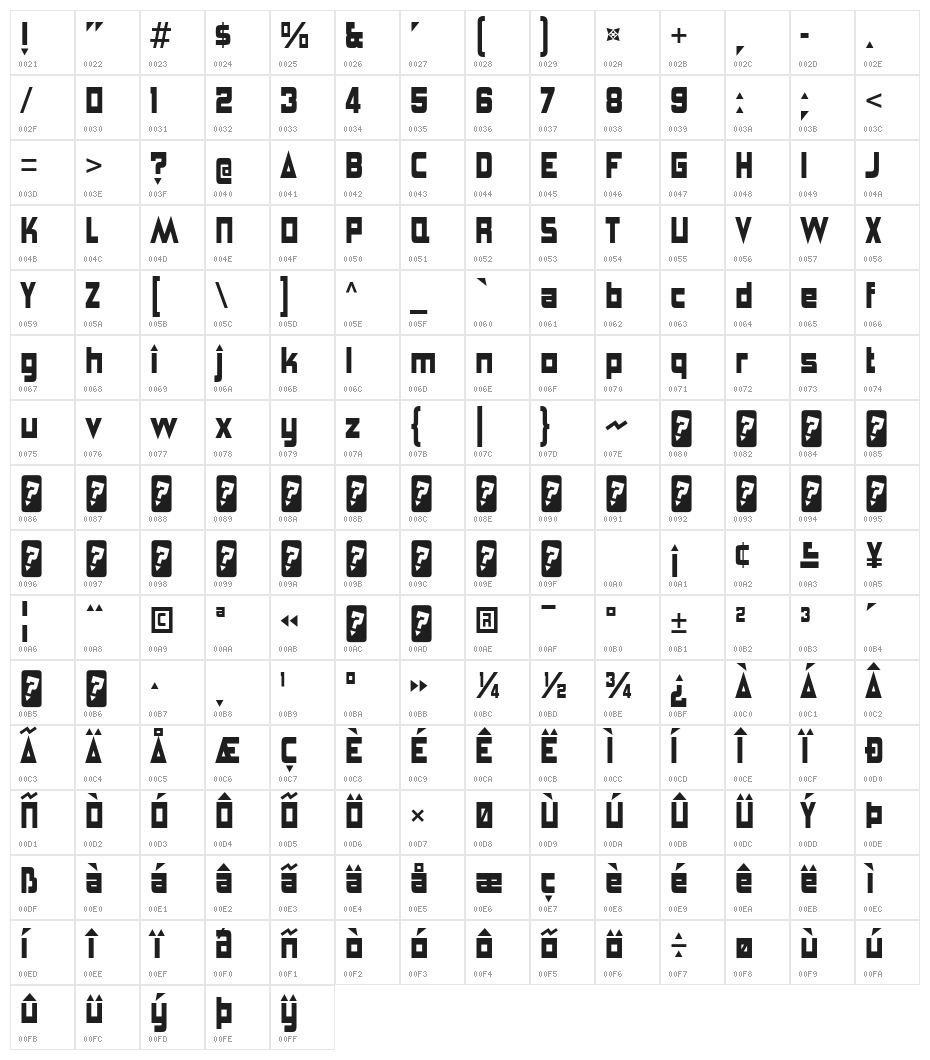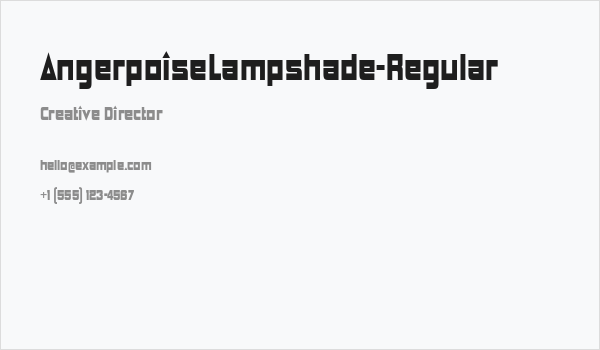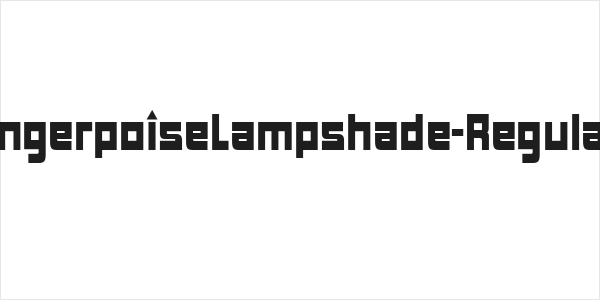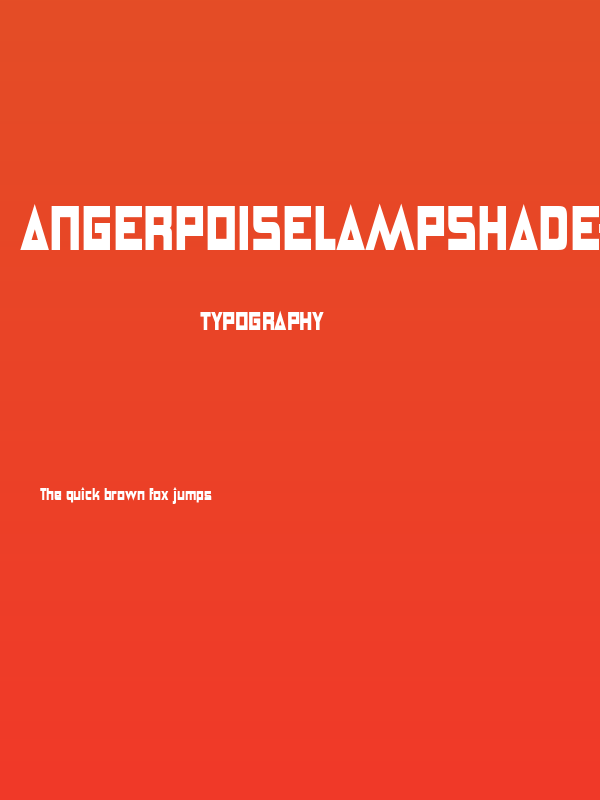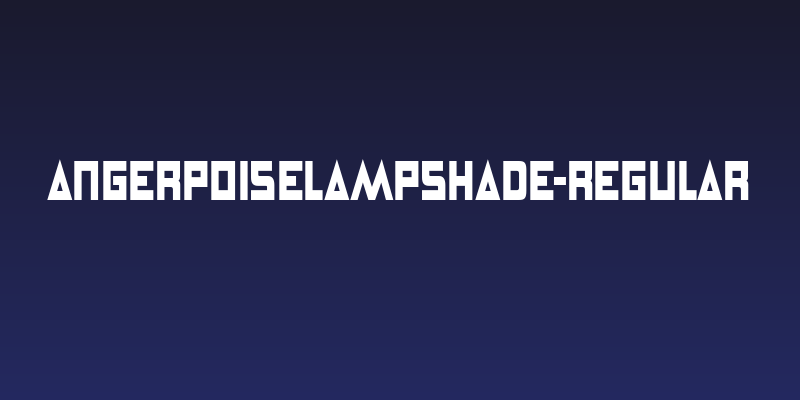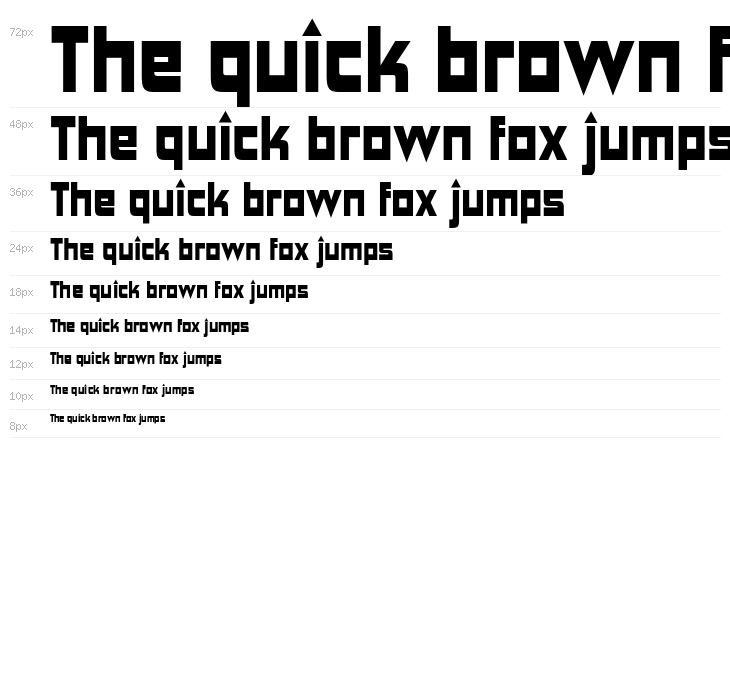
AngerpoiseLampshade-Regular Font
AngerpoiseLampshade-Regular Description
This font features a bold and geometric design, characterized by its strong, angular lines and solid structure. The uppercase letters are particularly striking, with a blocky appearance that conveys a sense of strength and modernity. The lowercase letters maintain this boldness, offering a consistent look across both cases. Numbers and special characters are equally robust, ensuring readability and impact. The overall style is reminiscent of industrial or futuristic themes, making it suitable for projects that require a strong visual presence.
| Proposed Projects | Ideal for branding, posters, headlines, and any design requiring a strong, modern impact. |